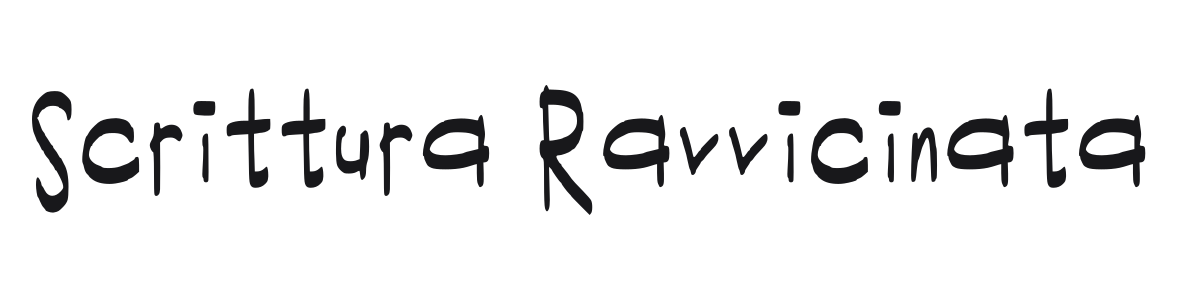
Scrittura Ravvicinata
by valenfont
Scrittura Ravvicinata is a bold, casual handwritten face from valenfont that feels like someone grabbed a thick marker and wrote with confident, slightly uneven strokes. The letterforms have a quirky, playful looseness to them, each one carrying just enough personality to feel genuinely informal rather than manufactured. Best kept to display use, headlines, and short text where its chunky, handmade character can come through.